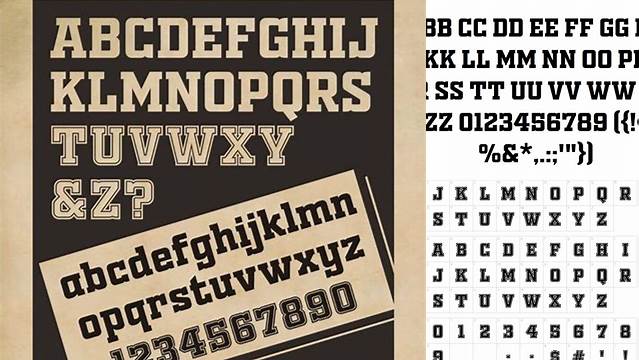
Hey guys! Ever stumbled upon a font that just screams vintage charm? That's the magic of the Old Sport font. If you're looking to inject some classic elegance into your designs, you've come to the right place. This guide will walk you through everything you need to know about the Old Sport font, where to find it for free, and how to use it to create stunning visuals. We'll dive into its history, explore its unique characteristics, and even give you some killer design ideas. So, buckle up and let's get this show on the road!
What is the Old Sport Font?
The Old Sport font is a captivating typeface that evokes the glamour and sophistication of the Roaring Twenties. Think Great Gatsby-esque vibes, art deco elegance, and a touch of vintage charm. Its distinctive letterforms, often characterized by bold strokes and elegant curves, make it a popular choice for projects that aim to convey a sense of timeless style and refinement. The Old Sport font isn't just a font; it's a statement, a throwback to an era of flappers, jazz, and undeniable class. So, if you are a fan of historical style, this can be the best font for you to download and use.
History and Inspiration Behind Old Sport Font
The history and inspiration behind the Old Sport font are deeply rooted in the Art Deco movement, which flourished in the 1920s and 1930s. This era was characterized by its bold geometric shapes, luxurious materials, and a general sense of optimism and modernity. The Old Sport font beautifully captures these elements, drawing inspiration from the typography used in vintage posters, advertisements, and signage of the time. Imagine the elegant lettering gracing the entrance of a grand hotel or the stylish titles of a classic film – that's the essence of Old Sport. The creators of this font likely aimed to replicate the sophistication and artistic flair of this period, making it a perfect choice for projects that seek to emulate this timeless aesthetic. This font is a tribute to the art and design of a bygone era, and it continues to inspire designers today.
Key Characteristics of the Old Sport Font
One of the key characteristics of the Old Sport font is its striking blend of boldness and elegance. The thick strokes give it a strong presence, while the refined curves and unique letterforms add a touch of sophistication. You'll often find a sense of symmetry and balance in its design, which contributes to its overall aesthetic appeal. The font typically features a relatively tall x-height (the height of lowercase letters), which enhances readability. Look closely, and you'll notice subtle details like the slightly flared serifs (the small strokes at the ends of the letters) and the distinctive shapes of certain characters, like the 'S' or the 'G'. These details are what give the Old Sport font its unique personality and make it so instantly recognizable. When you use this font, you're not just using a typeface; you're making a statement about your design sensibilities.
Using Old Sport Font in Graphic Design
Now for the fun part: using the Old Sport font in graphic design! This font truly shines when used in projects that aim to evoke a vintage or classic feel. Think logos, posters, invitations, and website headers. Its elegant and bold style makes it perfect for headlines and titles, where you want to make a strong statement. Consider pairing it with a simpler, more modern font for body text to create a nice contrast. Imagine using it for a speakeasy-themed event poster or a vintage-inspired wedding invitation – the possibilities are endless! Experiment with different sizes and weights (if the font family includes them) to achieve the perfect look. Remember, less is often more. Don't overuse the font; let its unique character stand out. A touch of Old Sport can add a whole lot of class to your designs.
Old Sport Font for Logos and Branding
The Old Sport font is an excellent choice for logos and branding, especially if you're aiming for a classic, sophisticated, or vintage aesthetic. Its distinctive letterforms can instantly elevate your brand's image, conveying a sense of timelessness and quality. Imagine a logo for a high-end barbershop, a boutique hotel, or a craft distillery – the Old Sport font would fit right in. When using it for branding, consistency is key. Choose a specific weight and style of the font and stick with it across all your materials, from your website to your business cards. Think about how the font will work in different sizes and formats. Will it be legible on small screens? Will it scale well for large print materials? These are important considerations to ensure your branding remains consistent and impactful. This font can help create a brand identity that exudes class and sophistication.
Future of Vintage Fonts: Will Old Sport Font Stand the Test of Time?
The future of vintage fonts, including the Old Sport font, is an intriguing topic to consider. Will these classic typefaces continue to be relevant in the ever-evolving world of design? While trends come and go, there's a certain timeless quality to vintage fonts that suggests they'll stick around for the long haul. The Old Sport font, with its art deco influences and elegant letterforms, taps into a sense of nostalgia and sophistication that resonates with many designers and audiences. As long as there's an appreciation for history and classic style, vintage fonts will likely find a place in design. However, the way these fonts are used may evolve. We may see them combined with more modern elements, or used in unexpected ways to create fresh and innovative designs. Ultimately, the future of vintage fonts depends on how designers continue to adapt and reinterpret them for contemporary contexts.